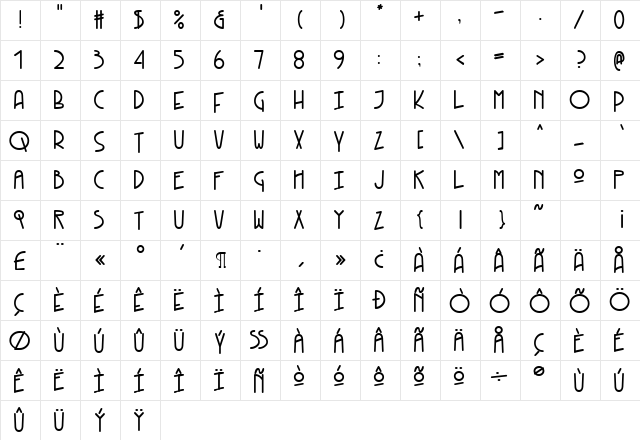
Kneebls Bold Free Font
Kneebls Bold
Design Context for Kneebls
Kneebls is a composed and adaptable typeface that performs quietly and consistently across a wide range of design contexts. Its bold stroke weight gives it real presence on the page.
Pro Tip: Use Kneebls in both headline and body roles to test its range before committing to a single application.